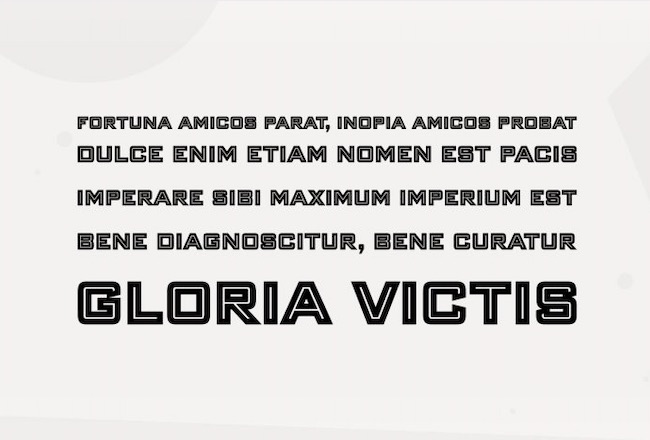
Iron Maiden Font is an elegant modern display typeface that was made by Steve Jackaman and shared by Red Rooster. This fancy font has a big potential to elevate your design up to a new level.
Iron Maiden Display Font
Designer Name: Steve Jackaman